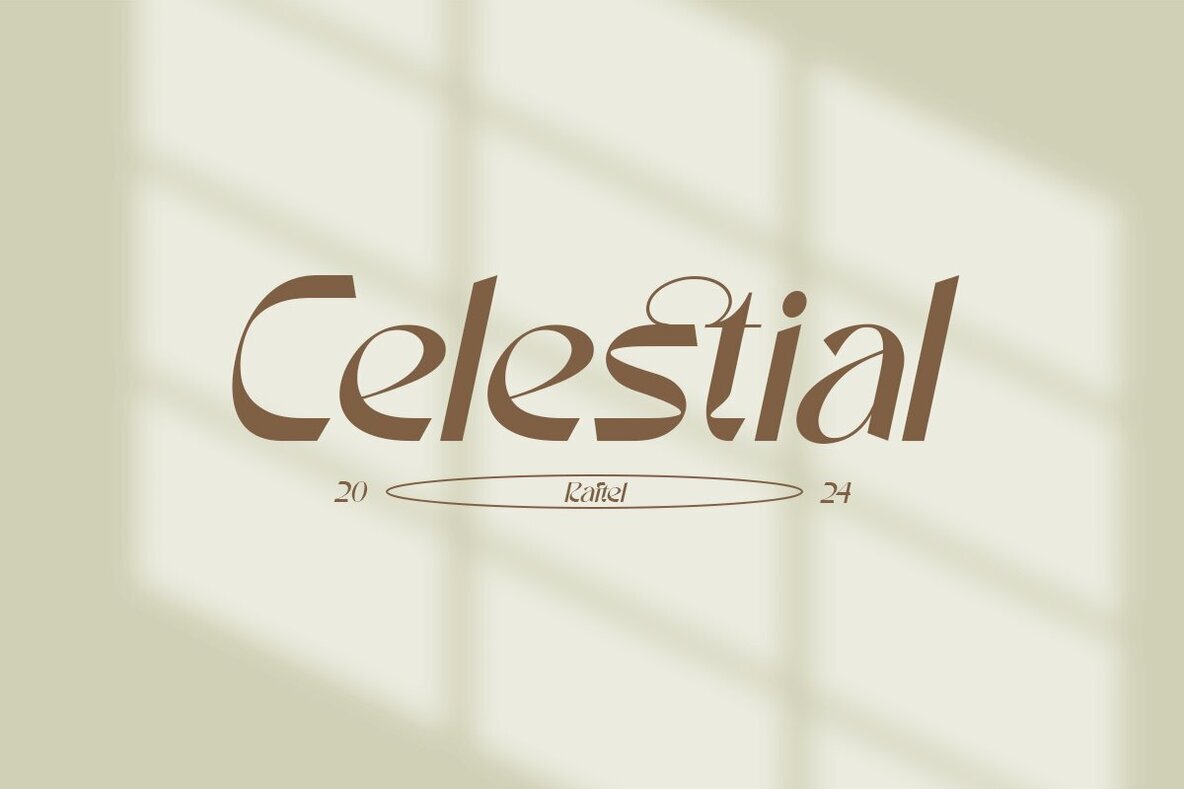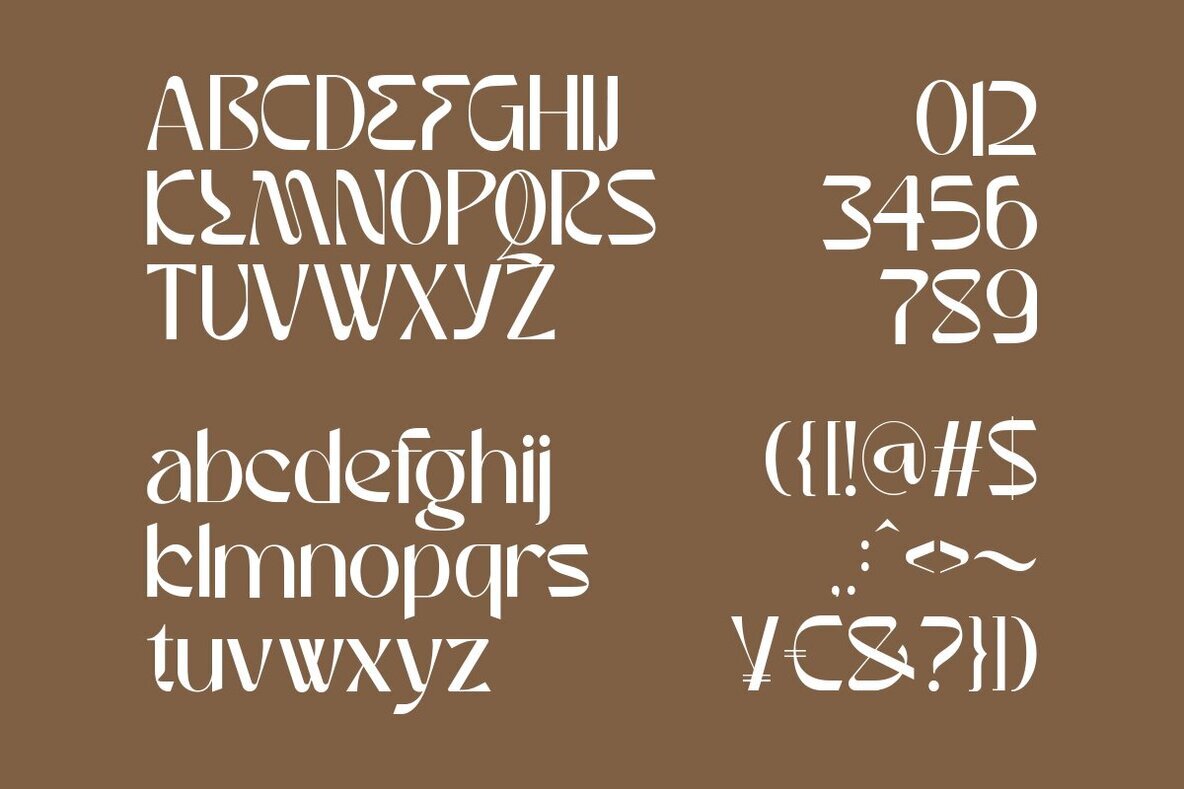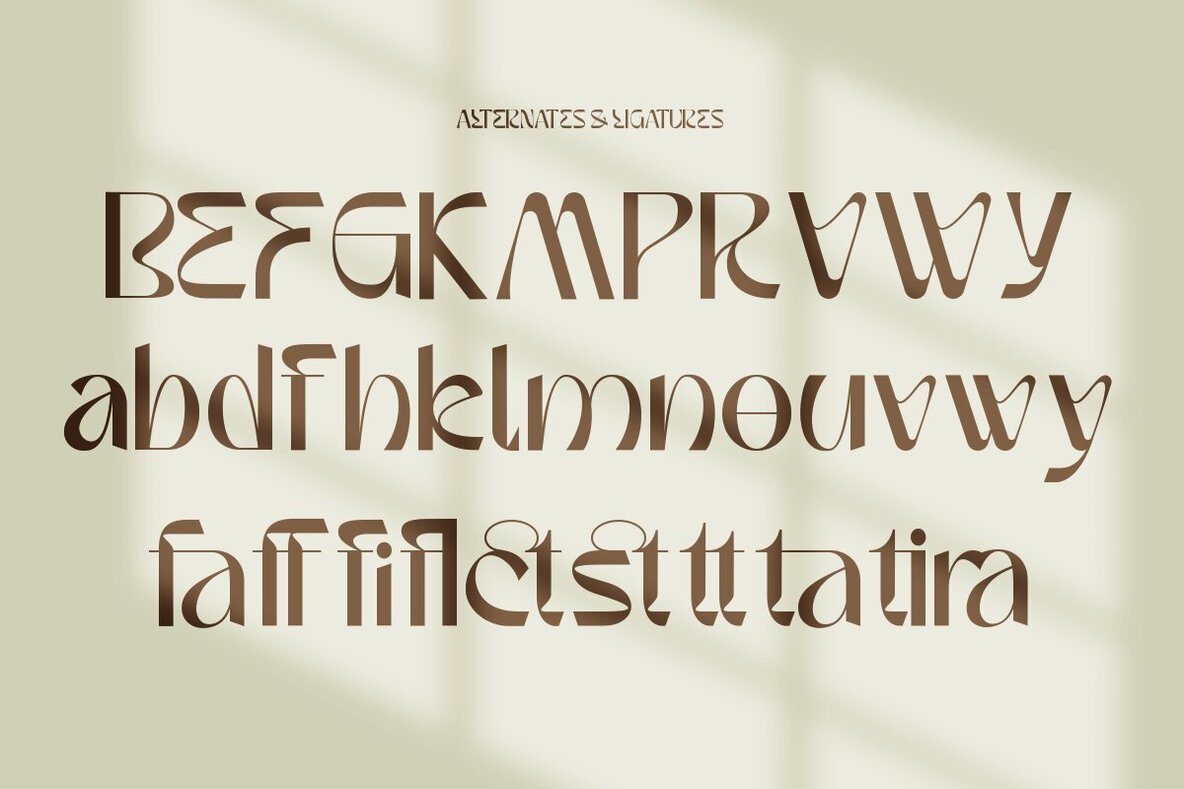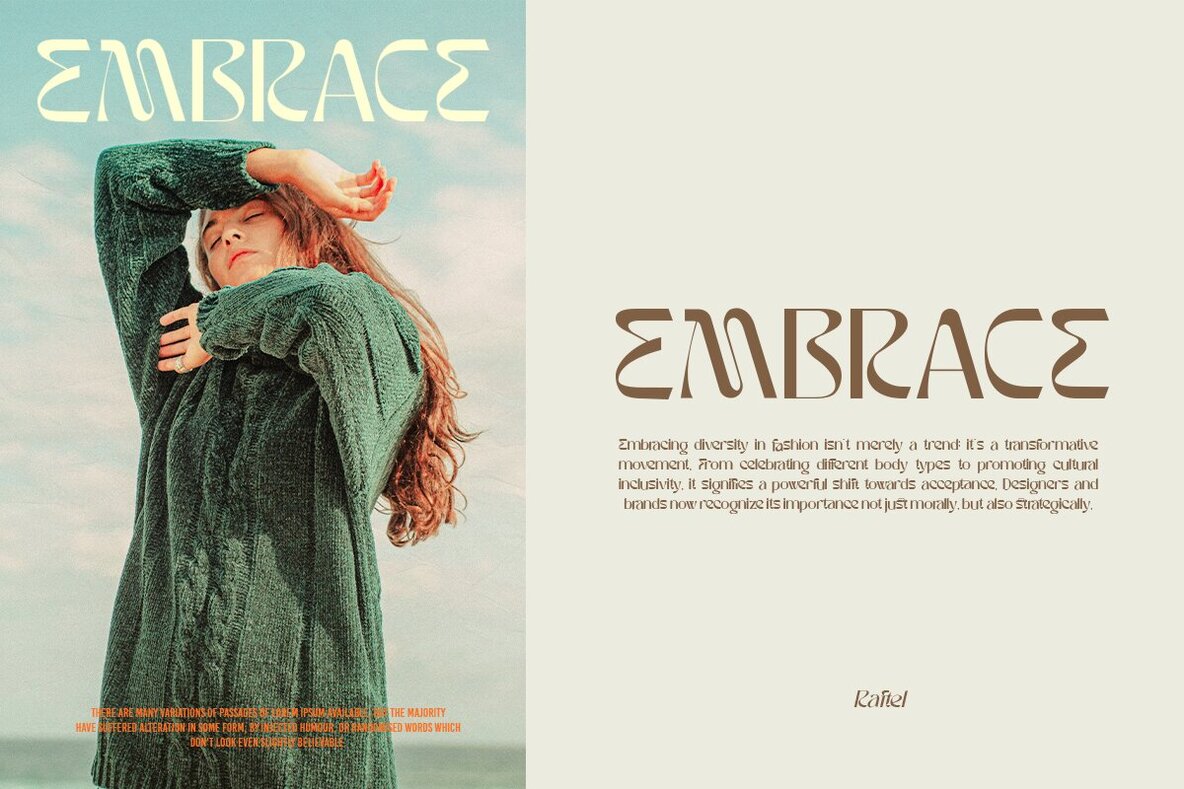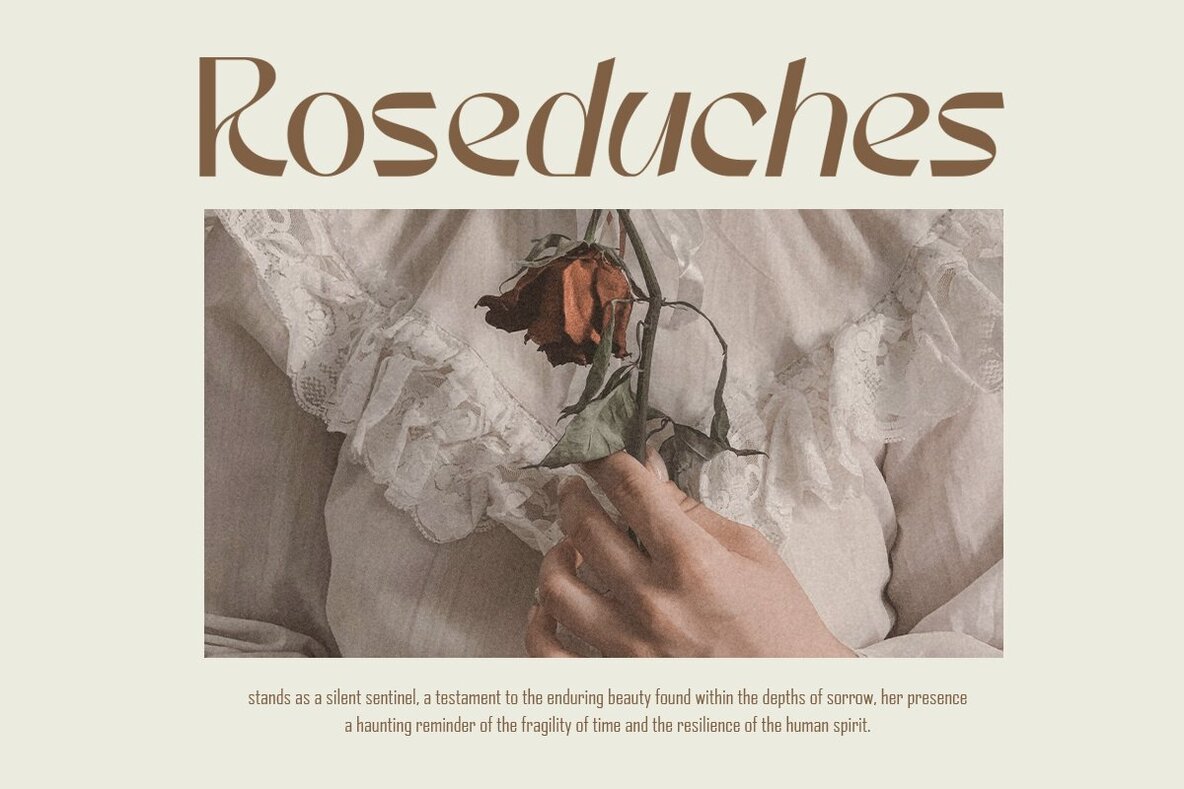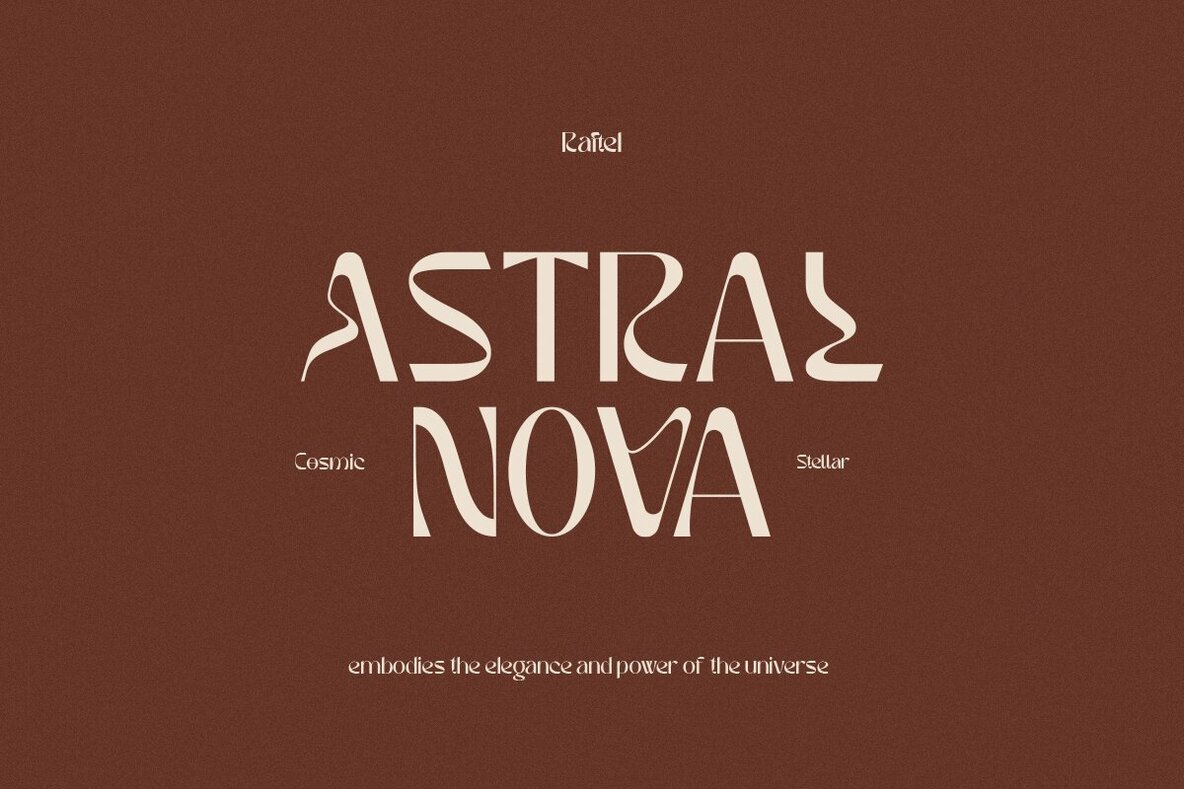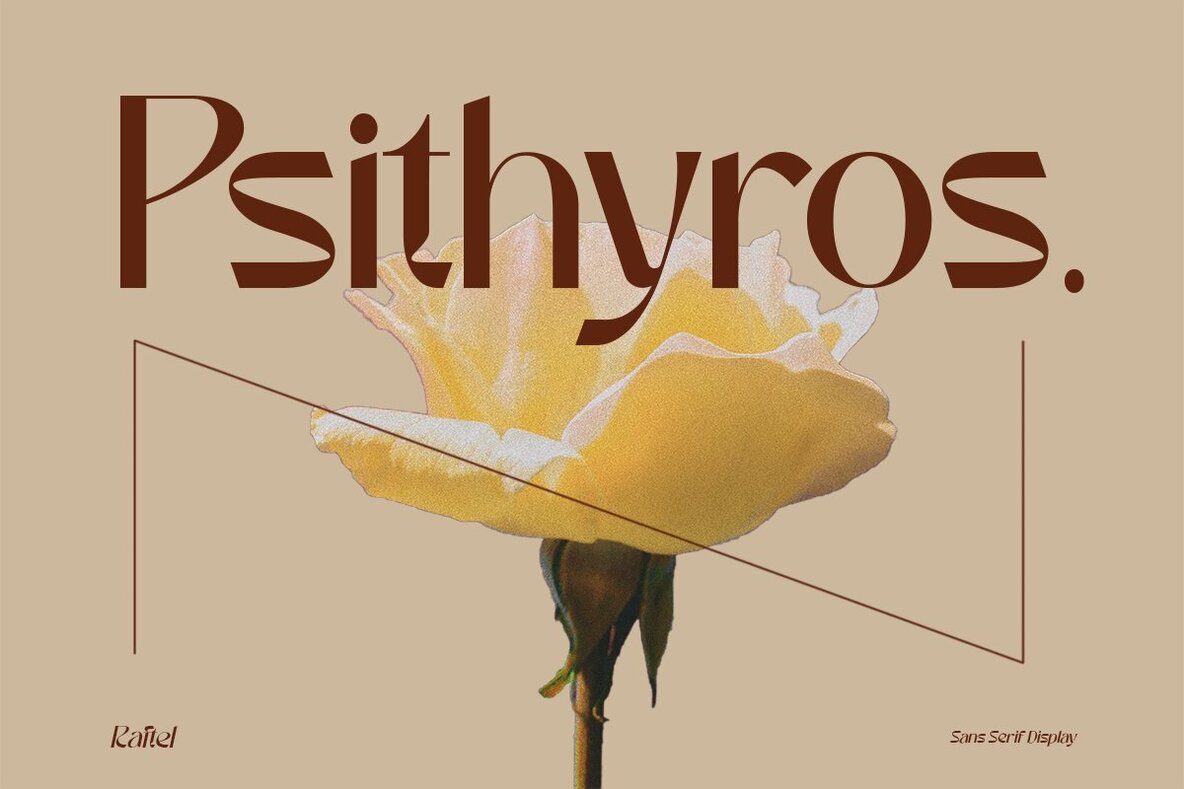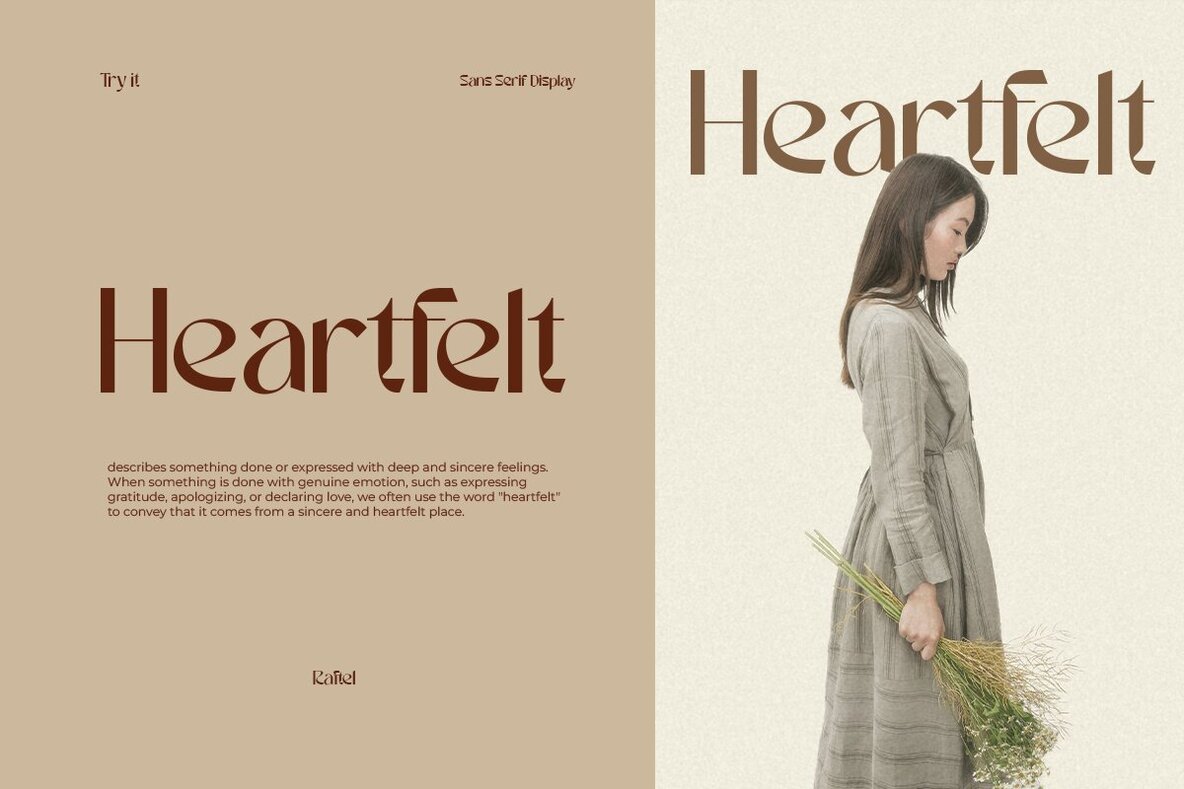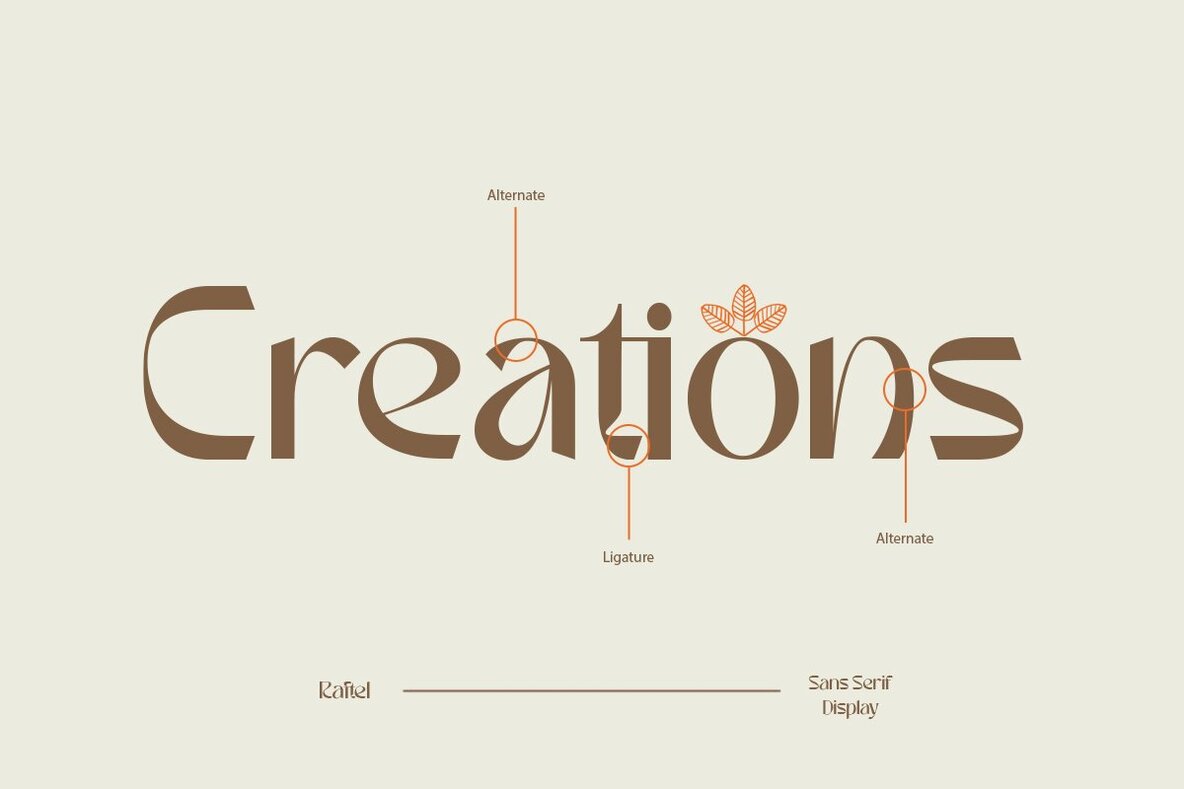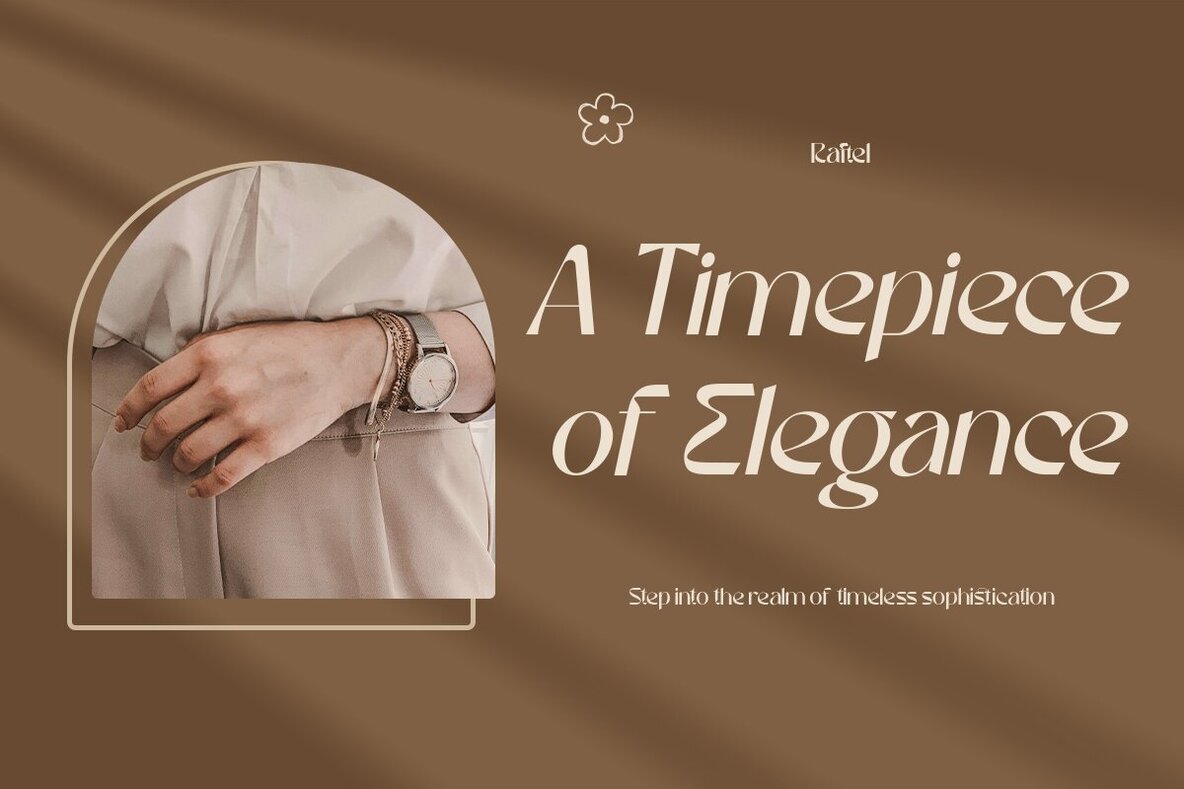
Raftel Font
Raftel is an elegant modern sans serif typeface, ideal for enhancing corporate identities, websites, publications, titles, books, magazines, business cards, logos, product labels, packaging, and various advertising purposes.Raftel: Elegant Modern Sans Serif